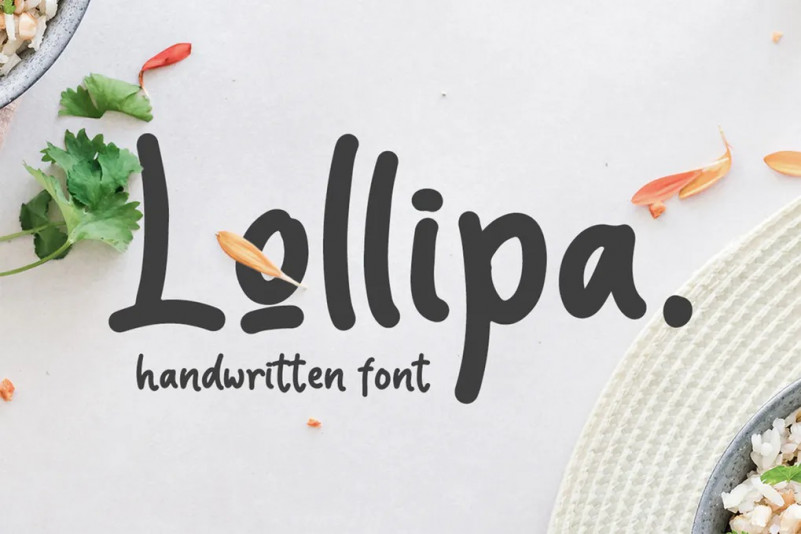
Lollipa Font
Introducing Lollipa Font. Lollipa Font is a fun handwritten font . Made with naturally handwritten. The font will make your design more beautiful and powerful. This font is suitable for any design like branding, quotes and etc. I hope you enjoy it !! Thanks for visiting and downloading my font!